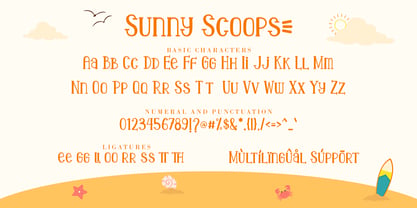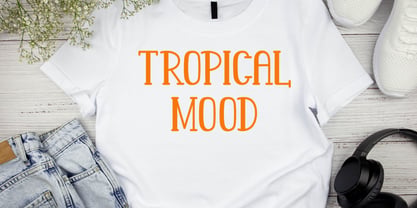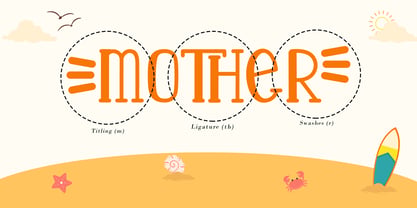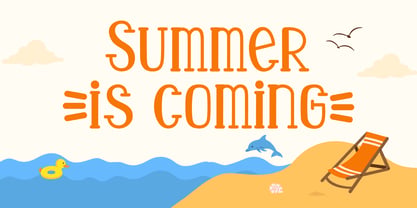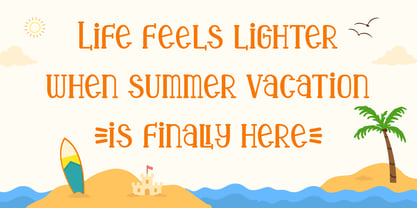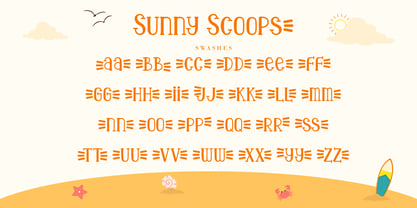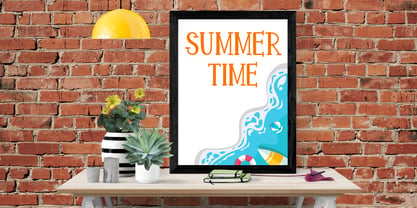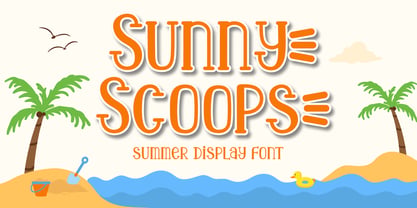
Sunny Scoops
von AEN Creative Studio
Die Schriftfamilie Sunny Scoops wurde von Agung Eko Nugroho entworfen und von AEN Creative Studio veröffentlicht. Sunny Scoops enthält 2 Stile und Familienpaketoptionen. Mehr über diese Familie
Sunny Scoops is a playful display font inspired by sunny days, sweet treats, and carefree summer adventures. Its tall letterforms, whimsical curves, and handcrafted feel create a cheerful look that instantly grabs attention.
Perfect for branding, packaging, posters, invitations, merchandise, children's products, social media graphics, and seasonal projects, Sunny Scoops brings warmth and energy to any design. The font combines a fun, approachable style with excellent readability, making it ideal for headlines, logos, and eye-catching display text.
Designer: Agung Eko Nugroho
Foundry: AEN Creative Studio